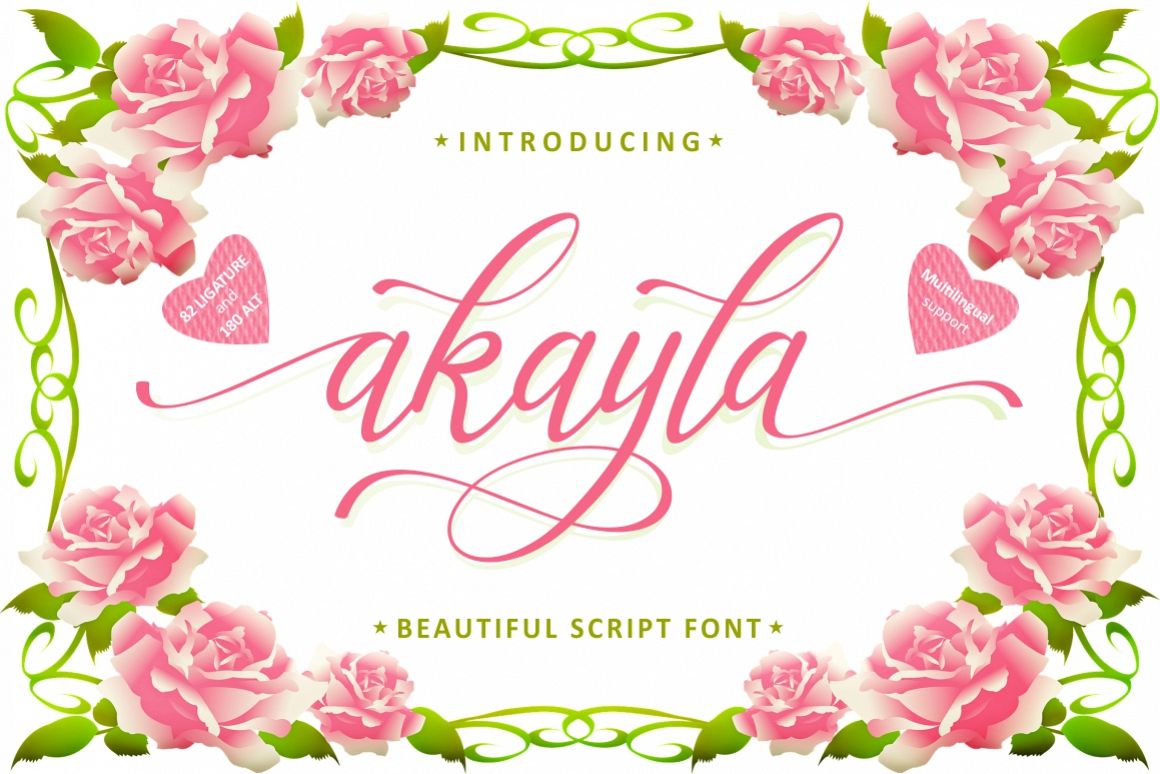
akayla
akayla-Regular
One more introduce "akayla" font script, This font is inspired by fashion in a delicate style of handwriting. Equipped with an Alternate and ligature so the font looks very beautiful. suitable for use in many of your needs. such as brand or logo, greeting cards, invitations and much more. hope you are inspired. thank you